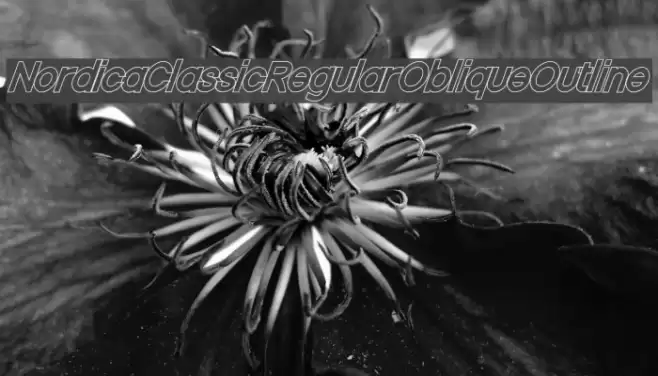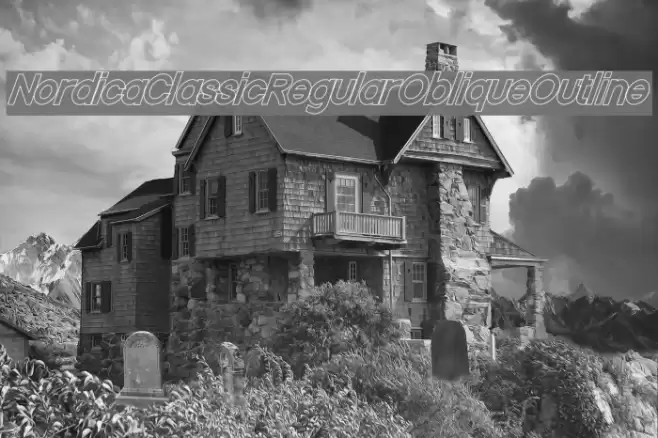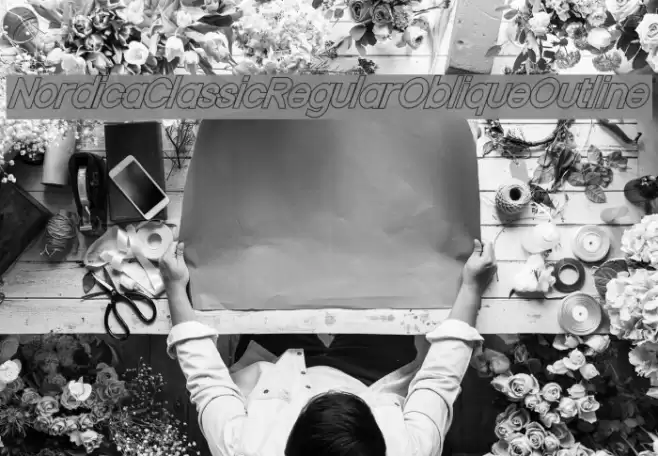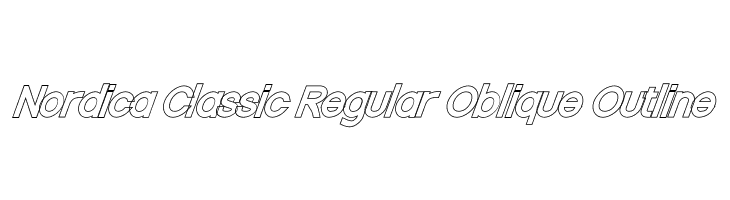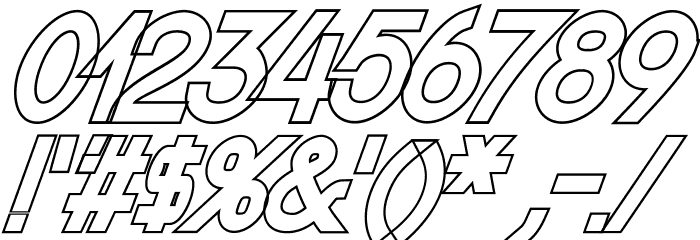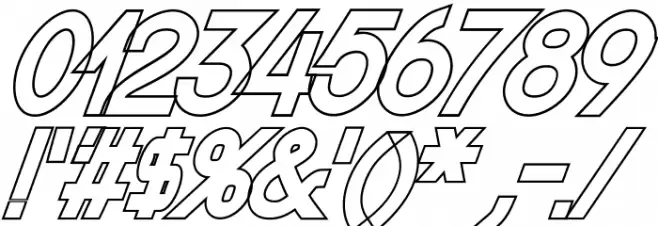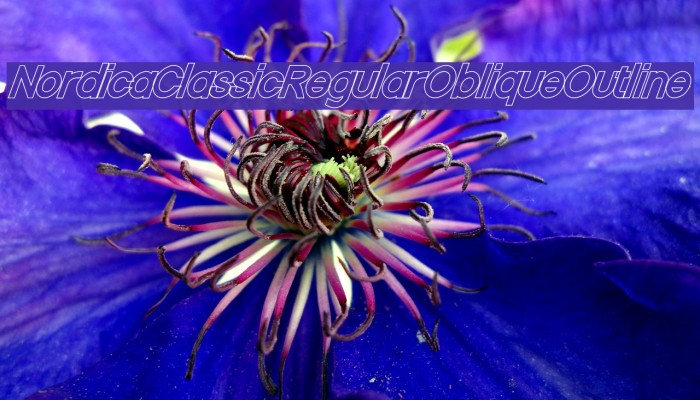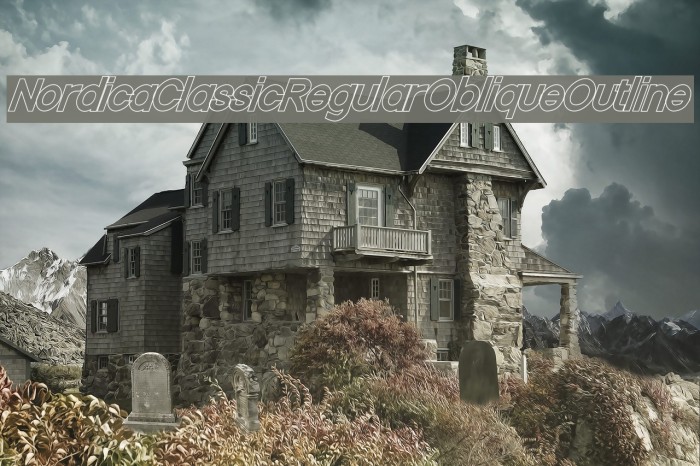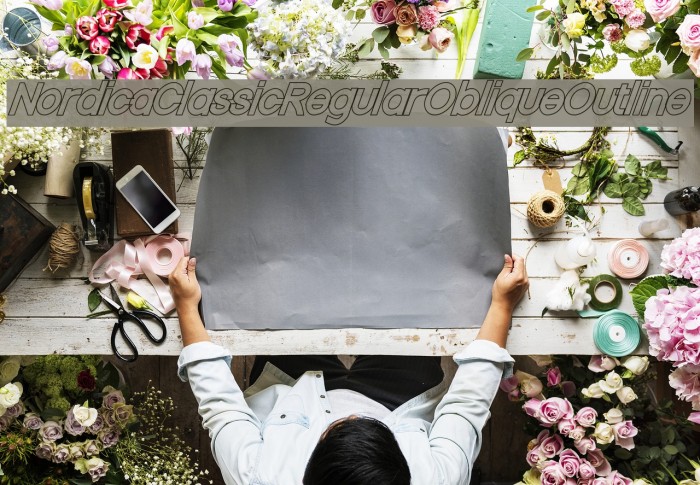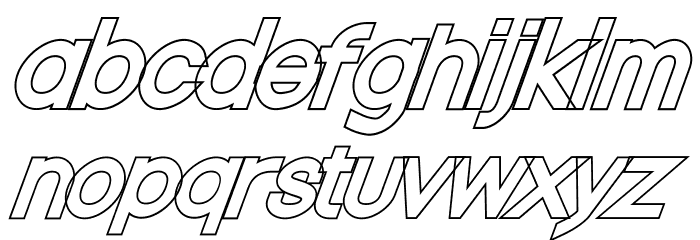
Nordica Classic Regular Oblique Outline
This font features a sleek and modern outline style with an oblique orientation, giving it a dynamic and forward-leaning appearance. The characters are well-spaced, maintaining readability while providing a unique aesthetic. The uppercase and lowercase letters are consistent in style, with smooth curves and sharp angles that create a sense of movement. The numerals and special characters are designed to match the overall theme, ensuring uniformity across all glyphs. This font is ideal for projects that require a contemporary and stylish look, such as branding, advertising, and digital media.
A modern, oblique outline font with a sleek and dynamic style.
- Proposed Projects: Ideal for branding, advertising, digital media, and modern design projects.
- Use Case: Headlines, Logos, Branding